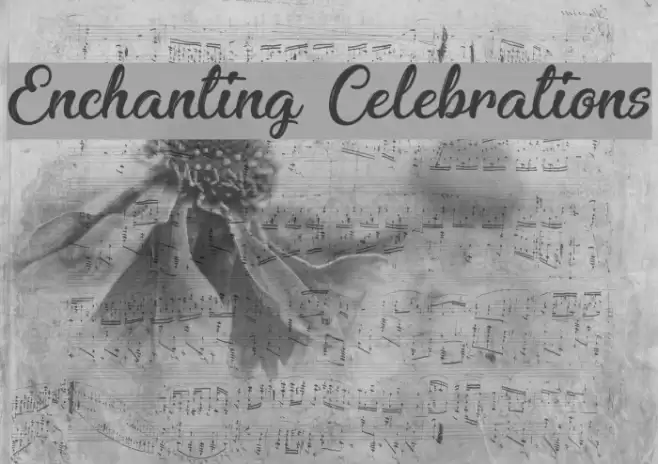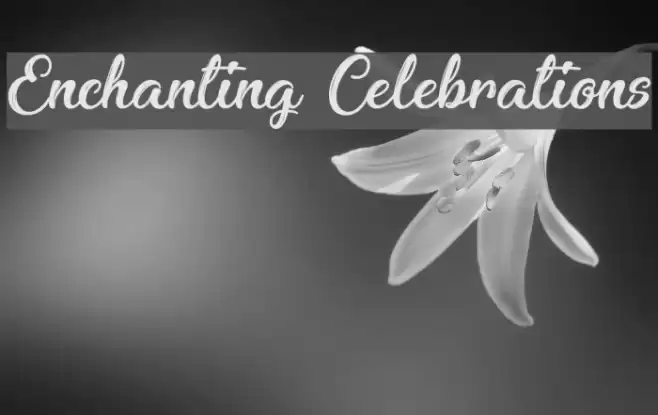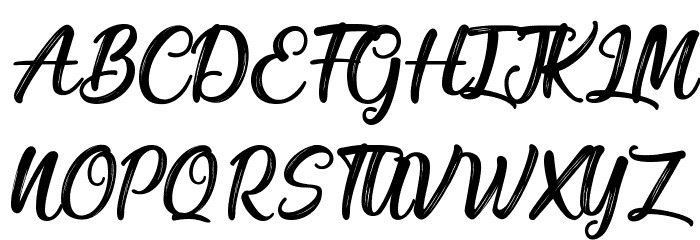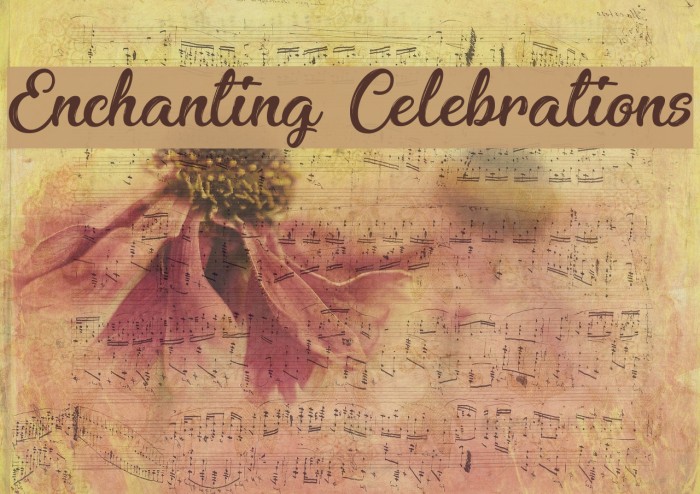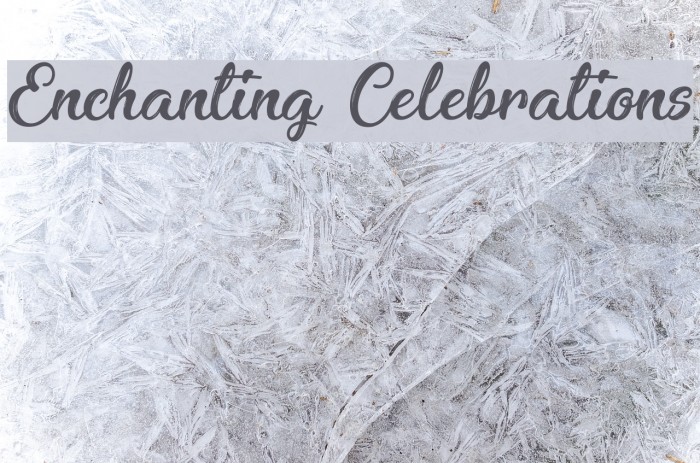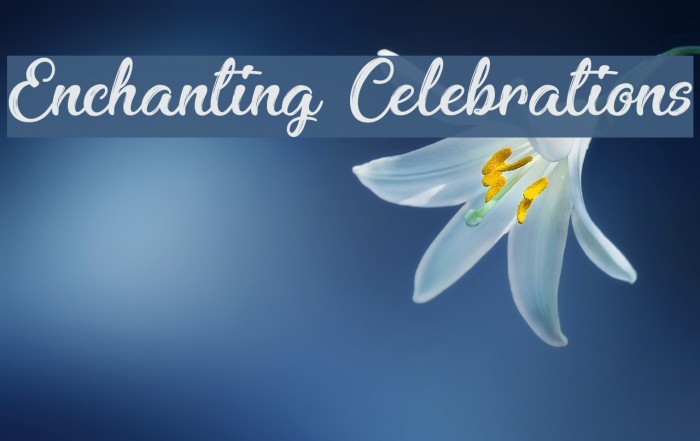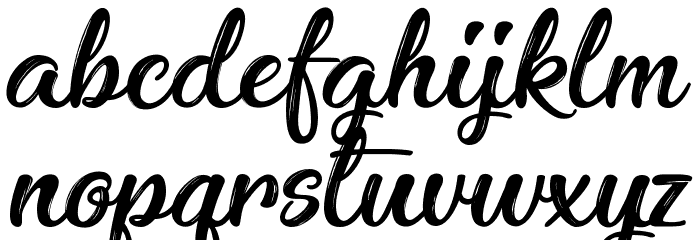
Enchanting Celebrations Font
Enchanting Celebrations Description
This font exudes a lively and elegant script style, characterized by its flowing, interconnected letters that mimic the fluidity of handwriting. The uppercase letters are bold and expressive, with sweeping curves and loops that add a sense of movement and grace. The lowercase letters maintain this fluidity, with a slightly more compact form that ensures readability while retaining the decorative flair. The numbers and special characters are consistent with the overall style, featuring similar curves and embellishments. This font is perfect for adding a personal touch to any project, combining sophistication with a playful edge.
A lively, elegant script font with flowing, interconnected letters from Uncategorized fonts.
- Proposed Projects: Ideal for wedding invitations, greeting cards, branding, and logo design.
- Use Case: Logos, Invitations, Greeting Cards